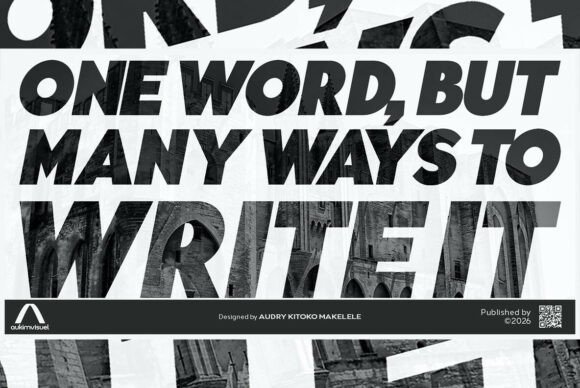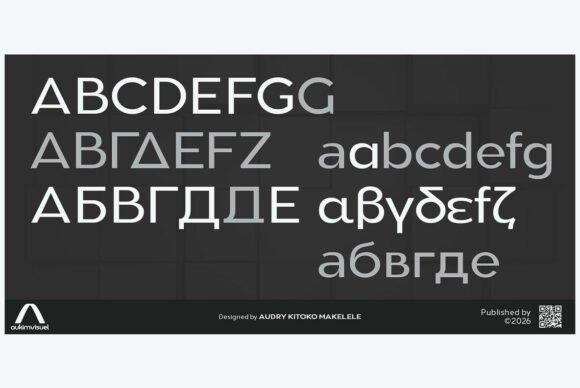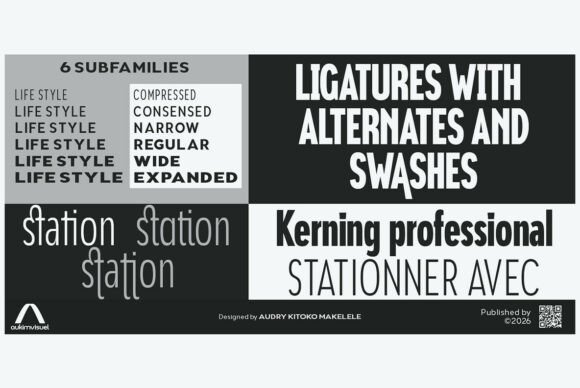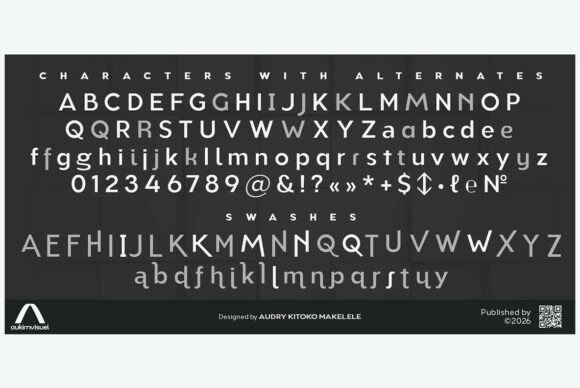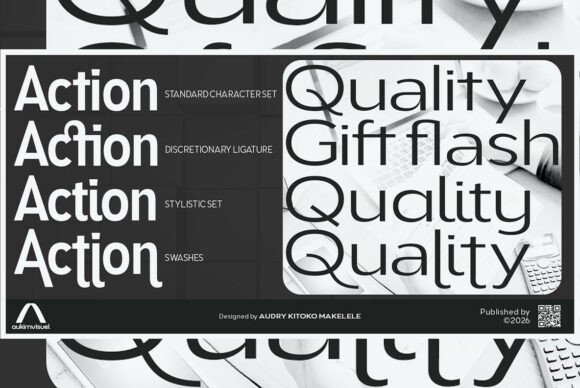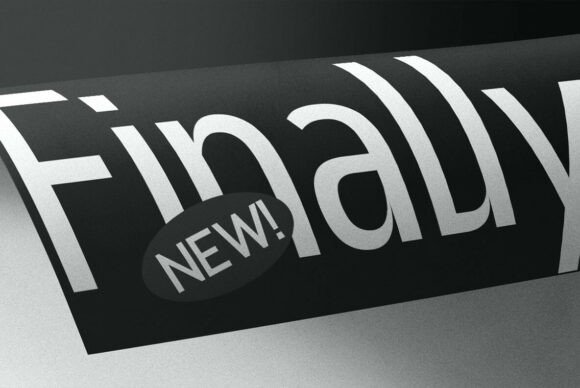
A New Era of Typography: Introducing Aukim II Font Font
Imagine a blank canvas, waiting for the perfect brushstroke to bring your creative vision to life. For designers, this moment is all too familiar. But what if the right tool was missing, holding back your masterpiece from reaching its full potential? That’s where Aukim II Font Font comes in – a game-changing sans serif font family designed to elevate your work and leave a lasting impression.
Aukim II Font Font is more than just a typeface – it’s a solution for professionals seeking unparalleled readability, uniformity, and style. With its unique blend of geometric and humanistic elements, this versatile font is perfect for branding, digital interfaces, and print publications. Whether you’re working on a multilingual project or need to convey complex ideas with clarity, Aukim II Font Font has got you covered.
Aukim II Font Font Key Features
- Font Family: Aukim II Font Font is a digital font family that includes multiple styles and weights, offering versatility in design applications.
- Unique Characteristics: Aukim II Font Font features a unique blend of modern and traditional elements, with intricate details and ornate flourishes that set it apart from other font families.
- Language Support: The font family supports a wide range of languages, including Latin, Cyrillic, and Greek alphabets, making it suitable for global design applications.
- Scalability: Aukim II Font Font is designed to be highly scalable, ensuring that it remains legible and visually appealing at various font sizes and resolutions.
Aukim II Font Review
I recently had the chance to work with the Aukim II Font, and I must say it’s a unique and intriguing choice. Here’s what I liked and didn’t like about it.
- Unconventional yet stylish design: Aukim II Font’s abstract shapes and bold lines make it stand out from more traditional fonts.
- Wide range of applications: This font is perfect for creating attention-grabbing headings, logos, and even body text for creative projects.
- Good legibility: Despite its complex design, Aukim II Font remains relatively easy to read, even at smaller font sizes.
- Limited character set: Aukim II Font is not a full-fledged font family, which means it’s missing some essential characters and symbols.
- Not ideal for body text: While it’s great for headings and titles, Aukim II Font may be too distracting for large blocks of body text.
Aukim II Font is a bold and eye-catching choice that’s perfect for creative projects where you want to make a statement. While it may have some limitations, it’s definitely worth considering for the right project.
Use Aukim II Font to add a touch of elegance and sophistication to your designs.
Pair it with bold colors and geometric shapes for a striking contrast.